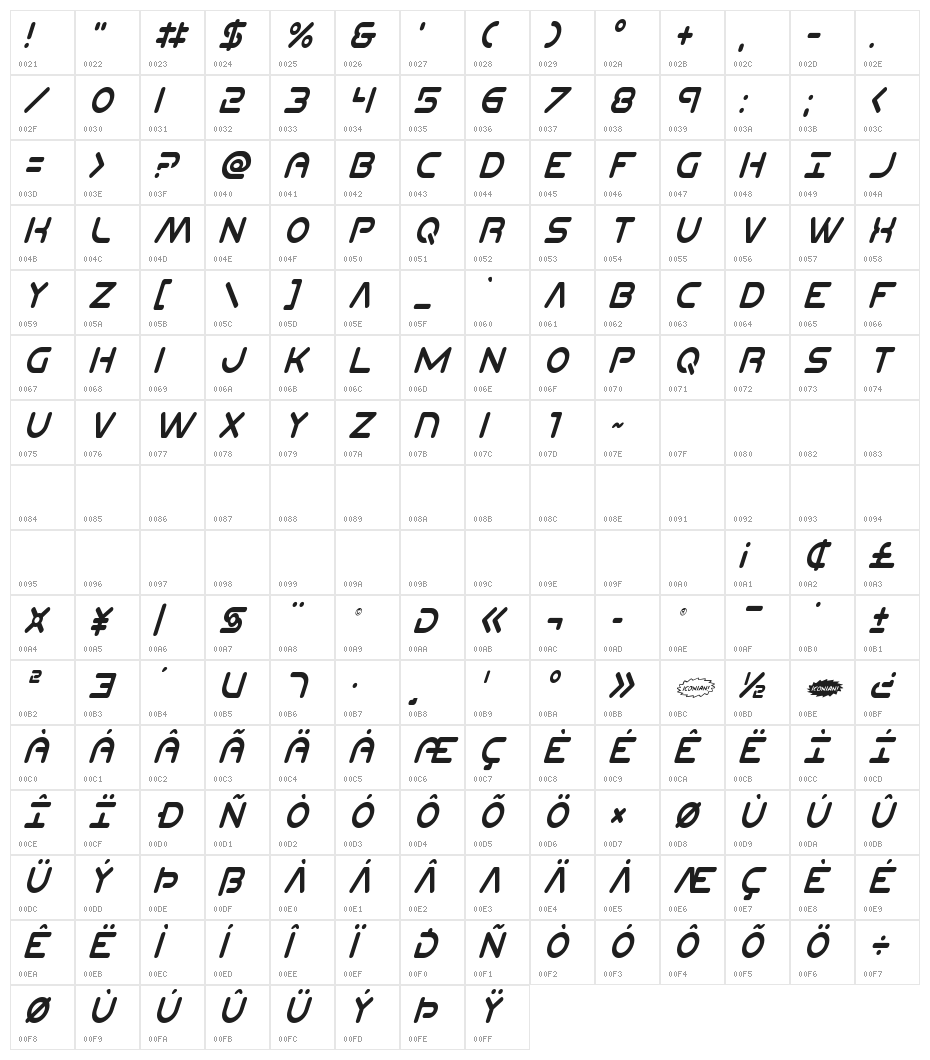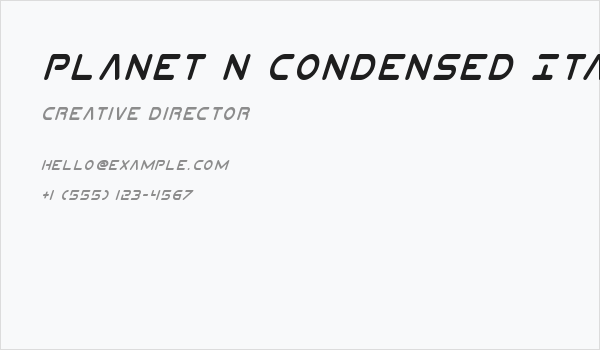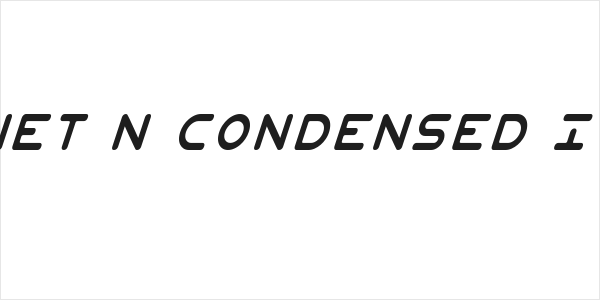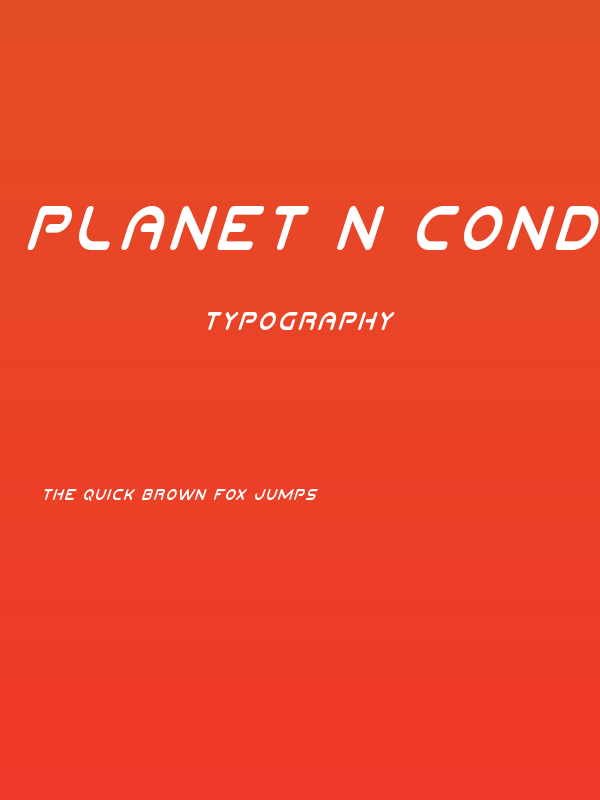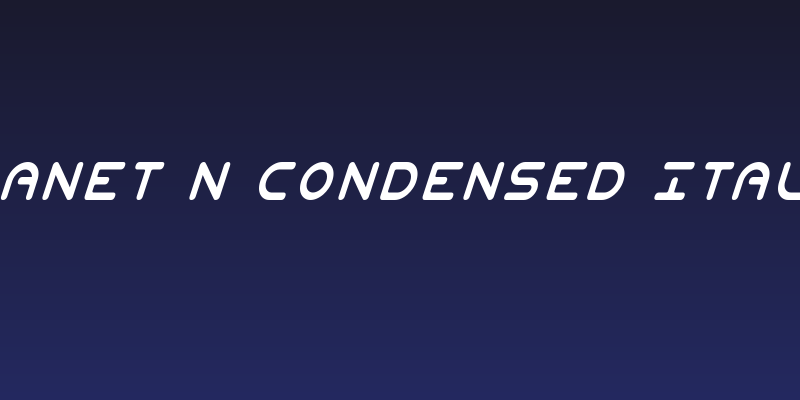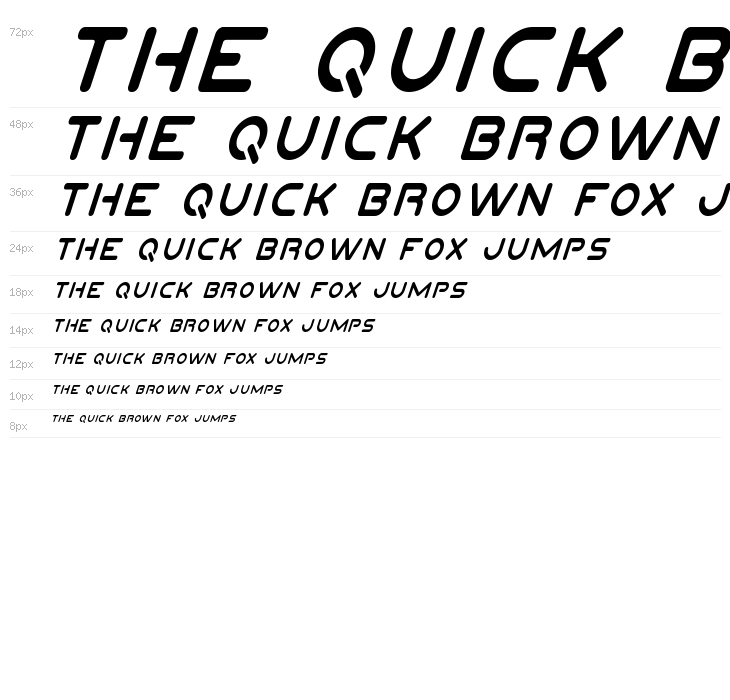
Planet N Condensed Italic Font
Planet N Condensed Italic Description
This font features a sleek, modern design with a condensed and italicized style. The characters are slightly slanted, giving a dynamic and forward-moving appearance. The strokes are uniform in thickness, contributing to a clean and streamlined look. The rounded edges and smooth curves add a touch of softness, while the condensed nature allows for efficient use of space. This font maintains readability while offering a unique, futuristic aesthetic. The numerals and special characters are consistent with the overall design, ensuring a cohesive appearance across all text elements.
| Use Case | Headlines, Logos, Digital interfaces |
| Proposed Projects | Ideal for tech branding, modern advertising, futuristic designs, and digital interfaces. |